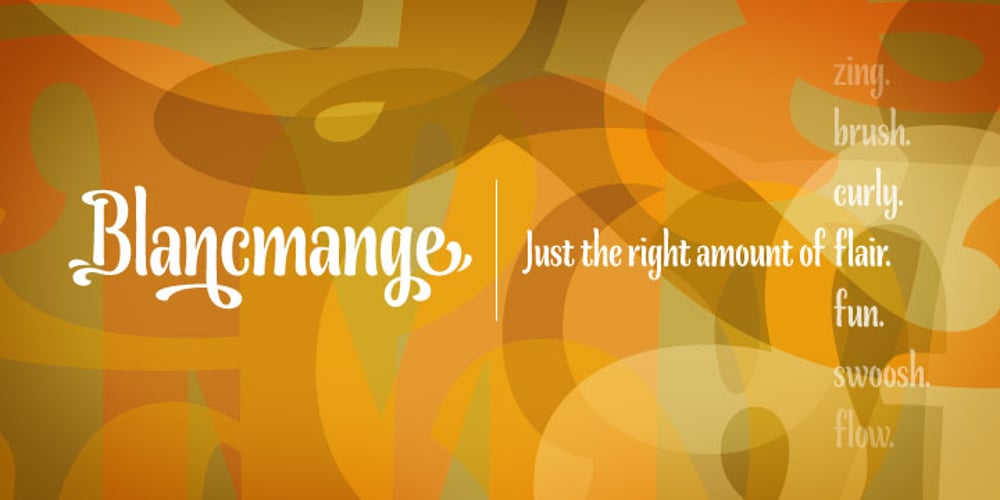
Blancmange
Blancmange font
Blancmange Font Family was designed by Galen Lawson and published by District. Blancmange contains 2 styles and family package options. Humanist meets handwriting. Blancmange is a fun and informal face with brushy alternates for the flair when you need it. Swash mannerisms blend with structured letter shapes to give a range of personality. Includes all the requisite OpenType goodies in two weights.